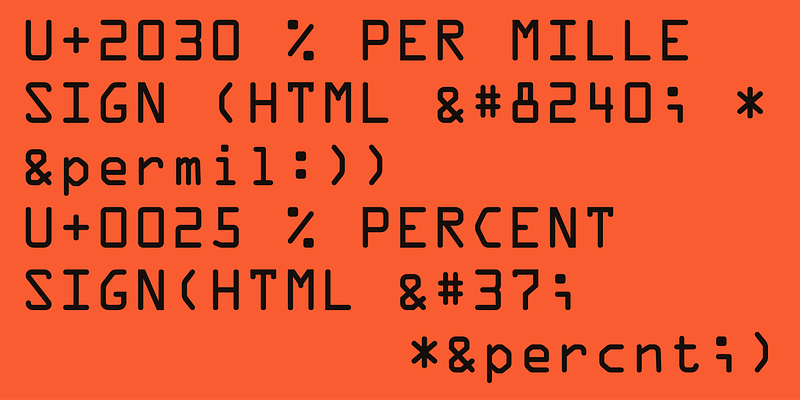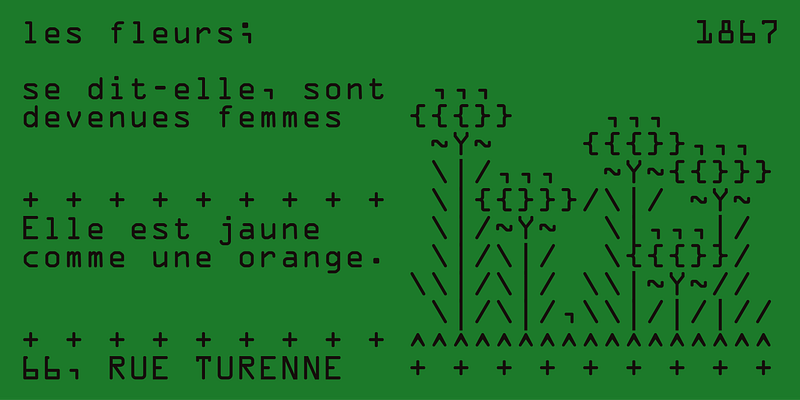
In 1968, American Type Founders produced OCR-A, one of the first optical character recognition typefaces to meet the criteria set by the U.S. Bureau of Standards. The design is simple so that it can be read by a machine, but it is slightly more difficult for the human eye to read. OCR-A follows the 1981 standard set by the American National Standards Institute (ANSI), X-3.17-1981 (size I). The same design is also specified for the German DIN 66008 standard. OCR-B was designed in 1968 by Adrian Frutiger for Monotype. This design pushes the limits of the optical reader, but is easier for people to read. OCR-B’s construction follows the ISO 1073/II-1976 (E) standard, with 1979 corrections (letterpress design, size I). Both OCR-A and OCR-B have “alternate” versions, which have the standard ISO-Adobe character set instead of the more limited OCR character set.